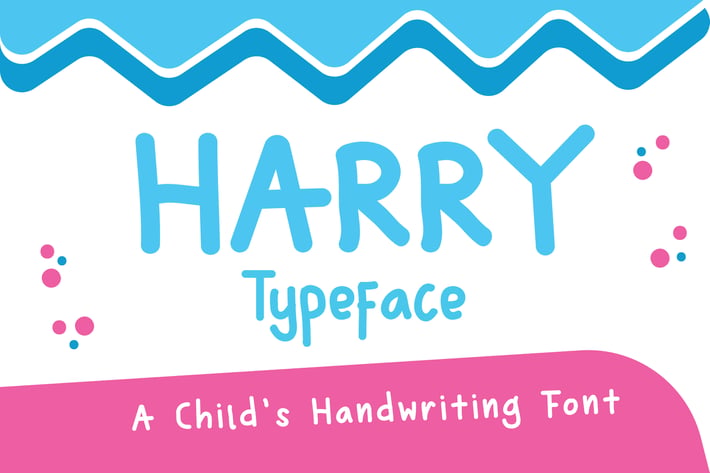
Harry Typeface - A Child's Handwriting Font
So beautiful on invitation like greeting cards, branding materials, business cards, quotes, posters, and more!